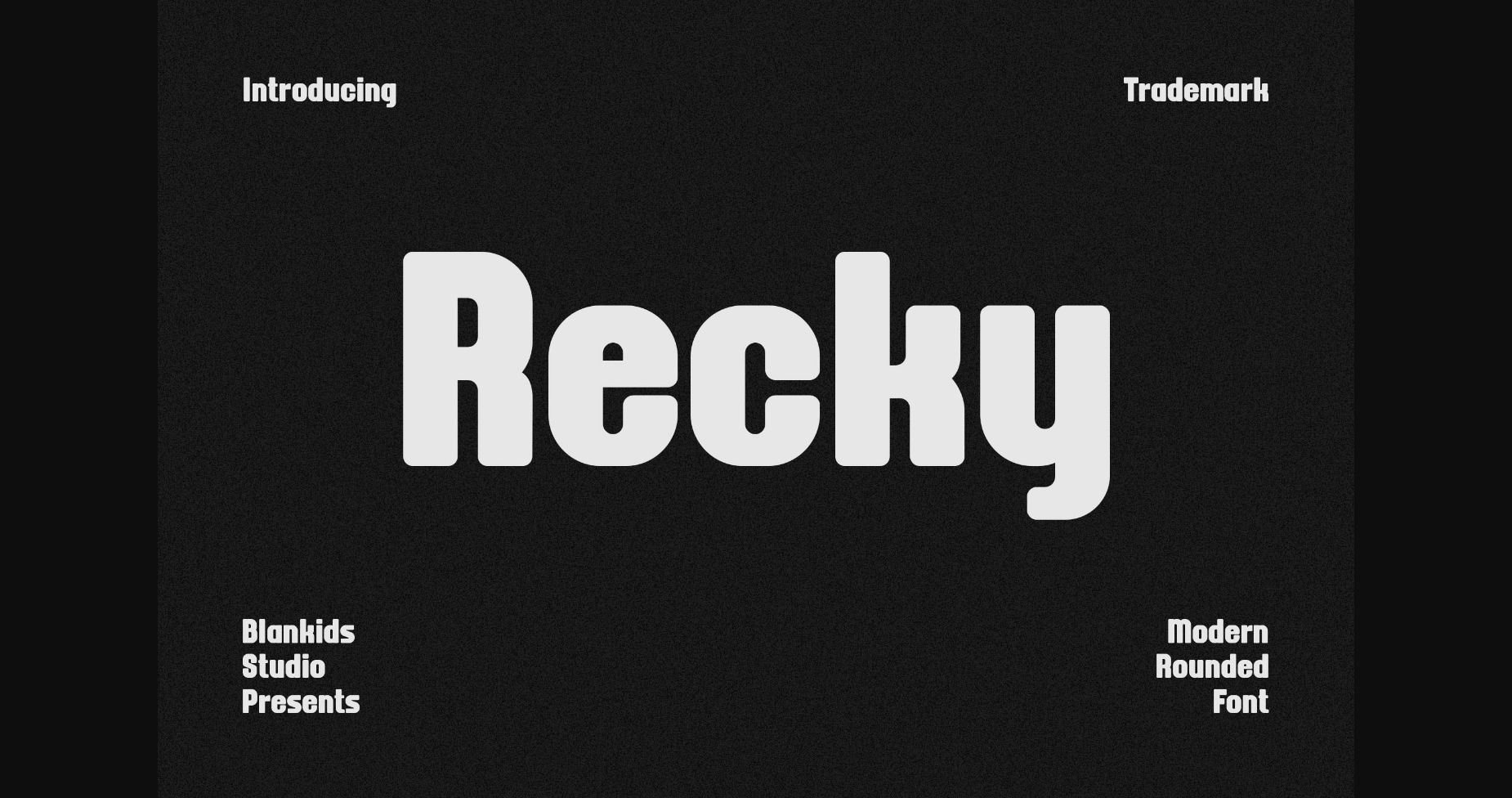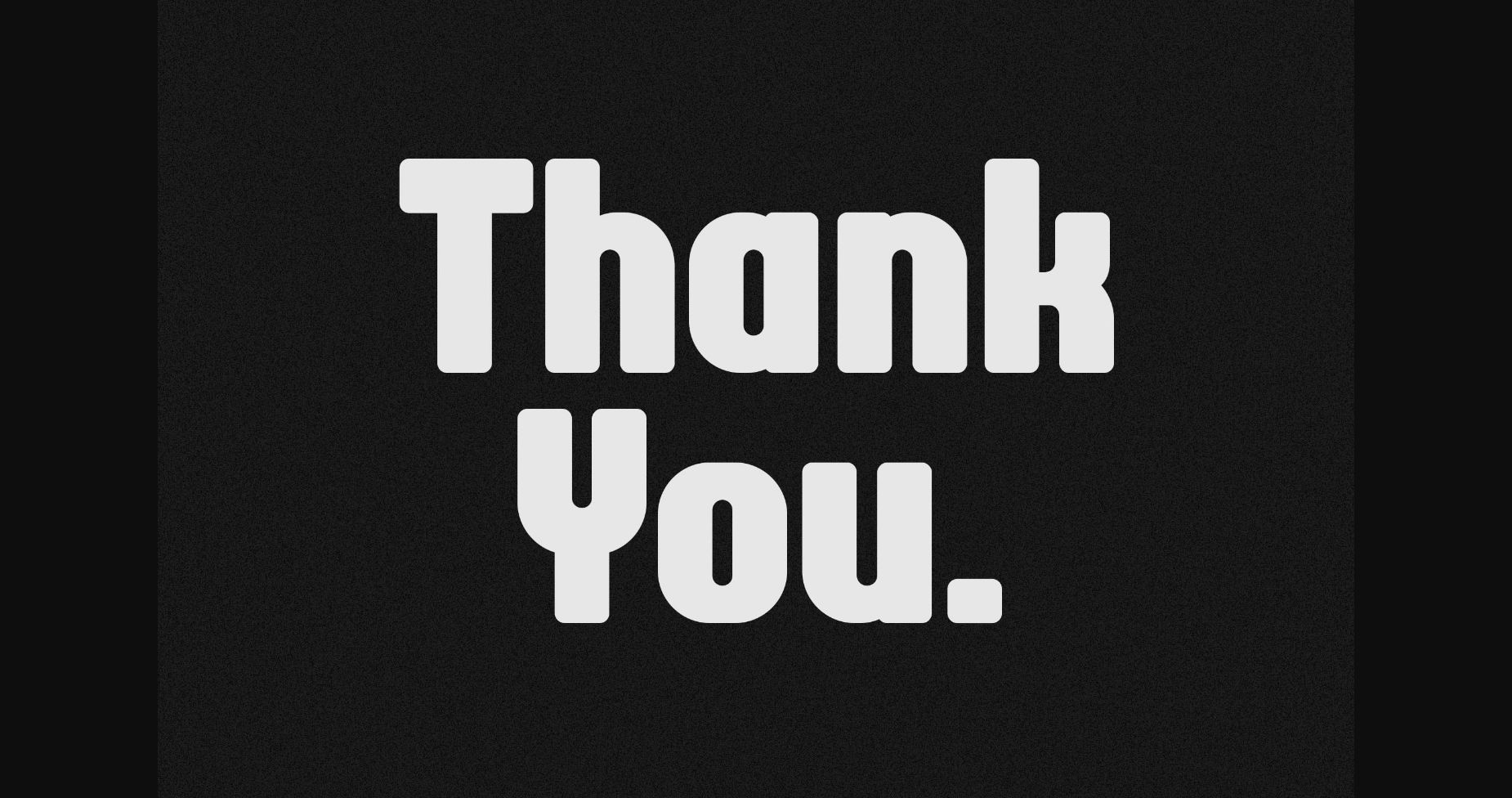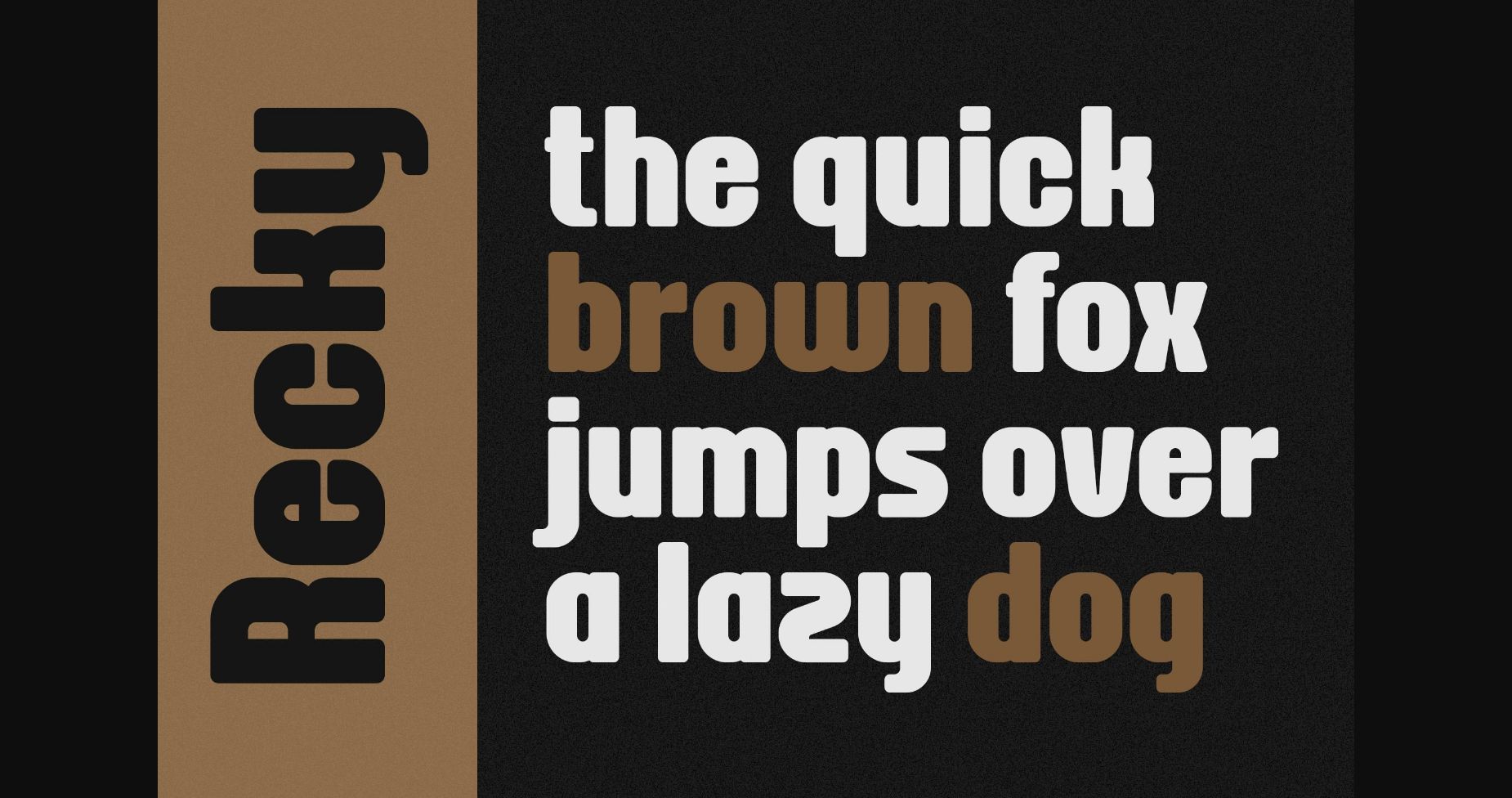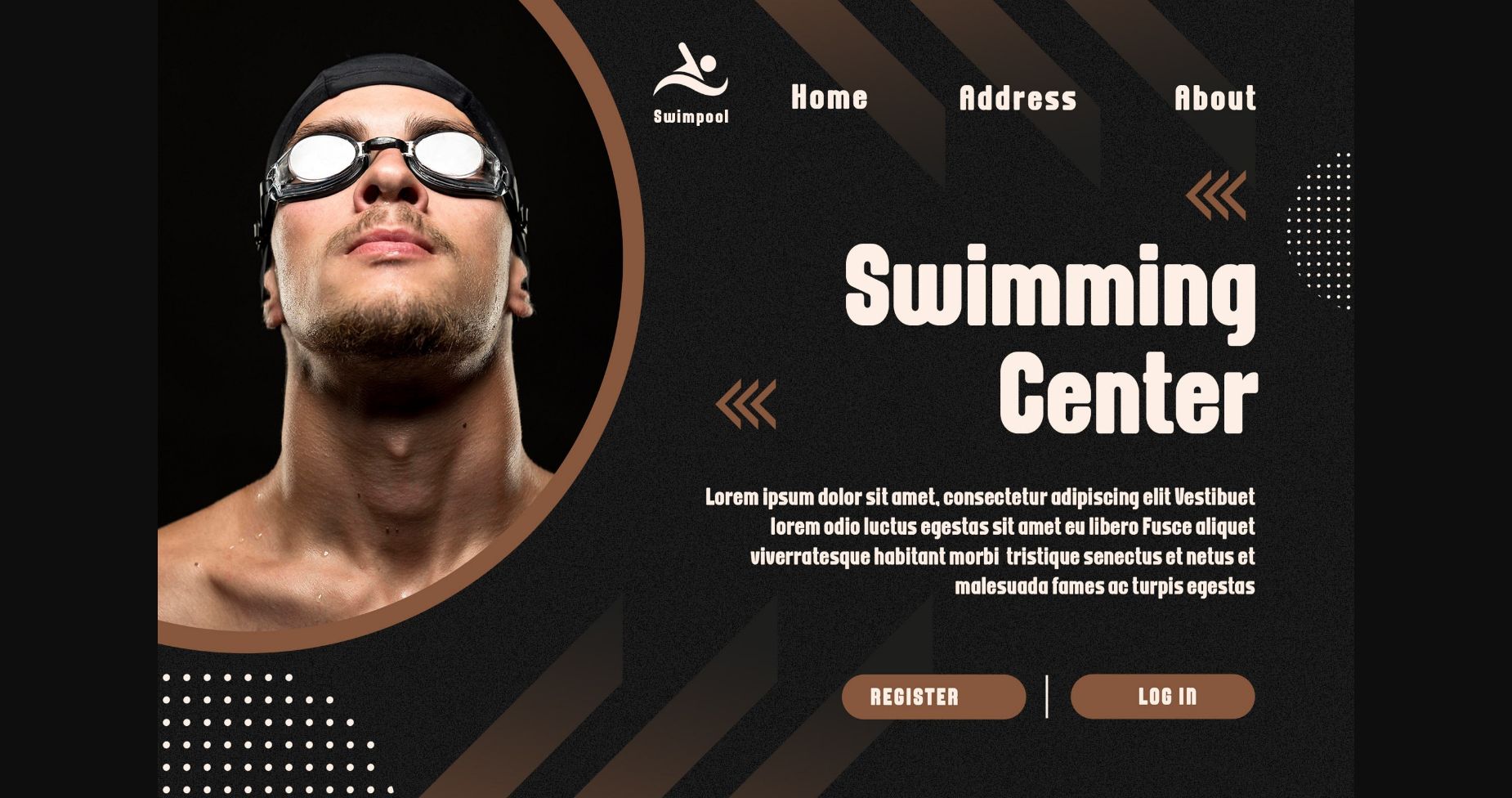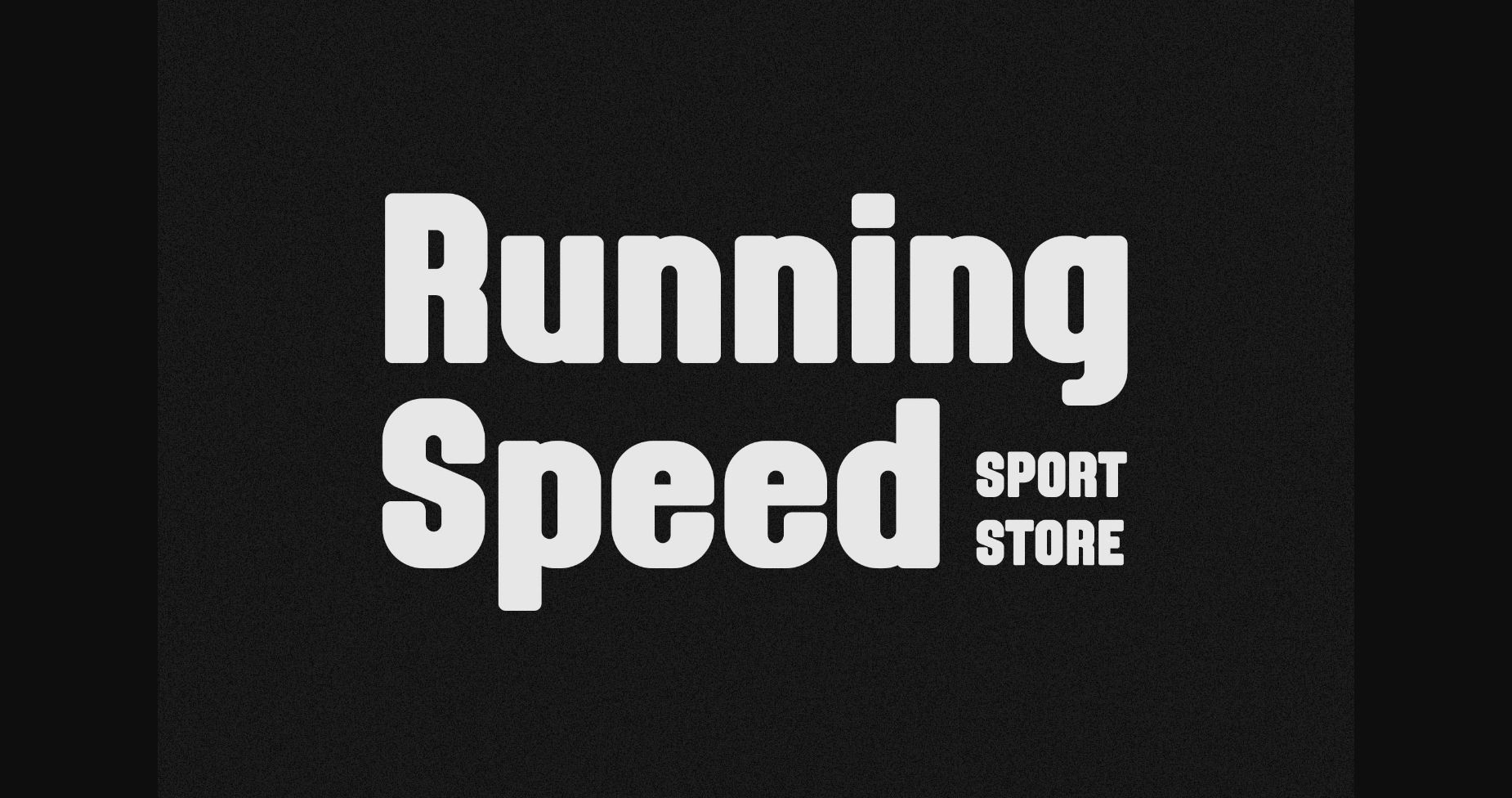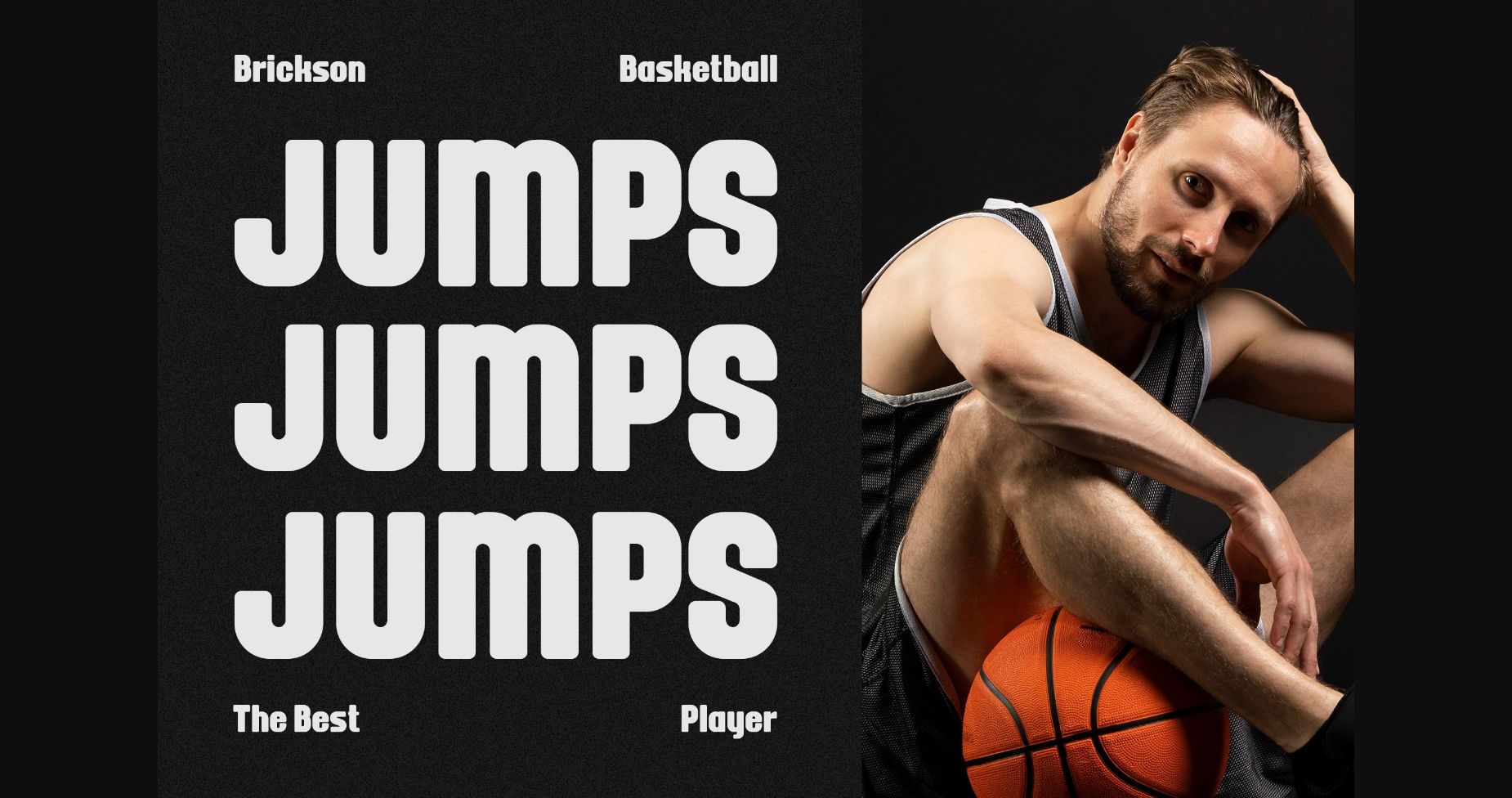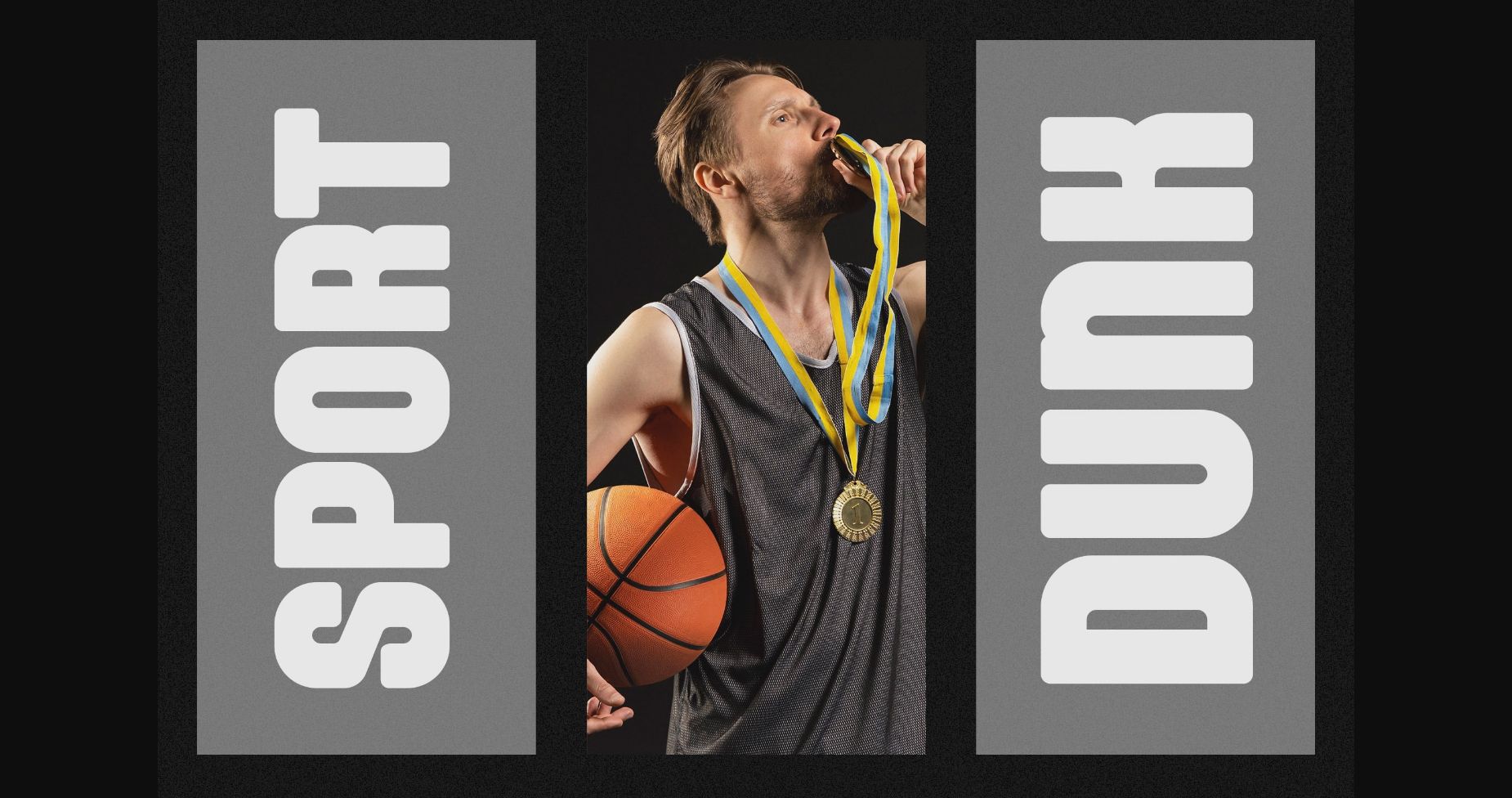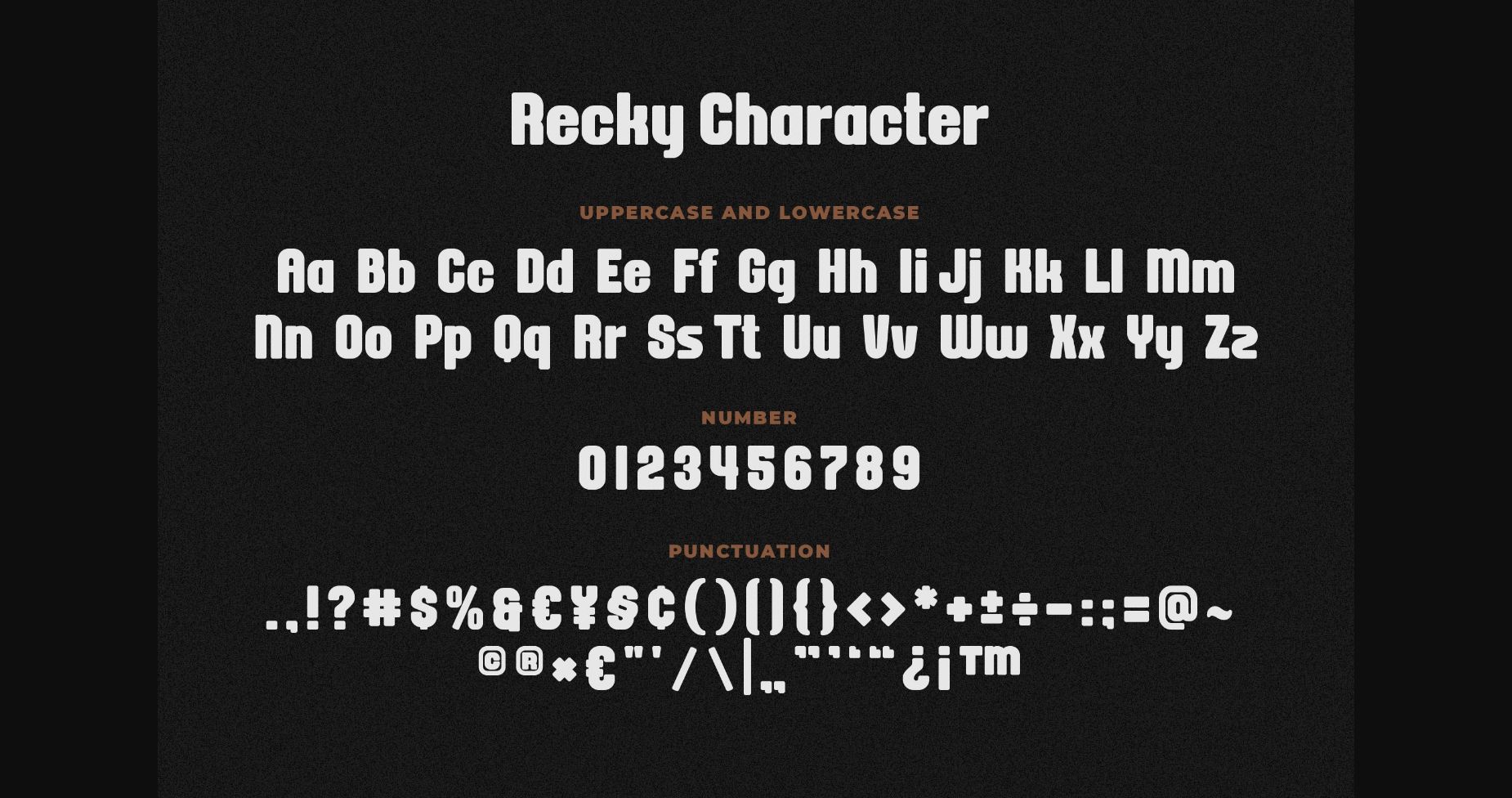
HomeSans Serif FontsRecky Font Sans Serif Fonts Recky Font FacebookTwitterPinterestWhatsApp 1 of 10 ... Recky Font Poster 2... Recky Font Poster 3... Recky Font Poster 4... Recky Font Poster 5... Recky Font Poster 6... Recky Font Poster 7... Recky Font Poster 8... Recky Font Poster 9... Recky Font Poster 10... About Recky Font Recky is a modern and professional sans serif font. Add it to your creative projects and you will love the results! DOWNLOAD NOW 159 0 People also explored Rain in January Font Salty Kisses Small Line Font Euffrat Font Happy Snowy Font Contra Condensed Matter Font Think Font Summer Beach Font Real Delight Font Lemon Juice Font Brouwerij TagsReckyRecky Font Previous articleMosgrad FontNext articleLipovka Font LEAVE A REPLY Cancel reply Comment: Please enter your comment! Name:* Please enter your name here Email:* You have entered an incorrect email address! Please enter your email address here Website: Save my name, email, and website in this browser for the next time I comment. Unlock Endless Creativity with the FREE September Clipart Huge Bundle (Valued at $700!) Personal Use Free Love Heart Personal Use Free Read more Unsteady Overseer Personal Use Free Read more Tahu Font Personal Use Free Read more Knox Personal Use Free Read more BLOG To increase your work productivity, choose the most readable fonts. In today's fast-paced work environment, where digital communication and information consumption are integral to our daily routines, the choice of fonts can significantly impact... Top 7 Google Fonts Alternatives for Faster and Privacy-Friendly Web Design (2025) The 10 Best Handwriting Fonts to Add Personality to Your Designs Where to Buy American Fonts Online in 2024